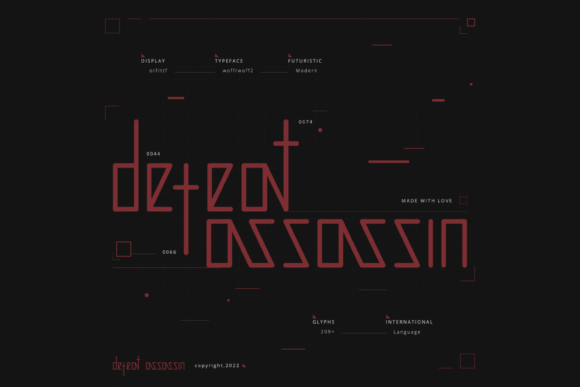
Introducing the Defeat Assassin Font, an extraordinary display font that breaks the boundaries of creativity. This font is not just a collection of letters and symbols; it's a gateway to a world of boundless imagination.
Step into a realm where your words take on a life of their own, commanding attention and leaving a lasting impression. Whether you're a seasoned designer or a budding creative, Defeat Assassin is your secret weapon, transforming your projects into captivating masterpieces.
Designed with precision and flair, the Defeat Assassin Font exudes a futuristic charm, perfect for designs that demand attention. Its sharp angles and bold strokes create a captivating visual impact, leaving your audience in awe.
From captivating headlines that leap off the page to mesmerizing logos that ignite curiosity, Defeat Assassin is your ultimate choice for making a statement. Its versatility knows no bounds, effortlessly adapting to a myriad of design styles, from sleek and modern to retro and playful.
Unlock the potential of your creative vision and let Defeat Assassin be your guiding light. Whether you're crafting marketing materials, designing social media posts, or creating stunning artworks, this font will elevate your creations to new heights.
Don't settle for ordinary fonts. Choose Defeat Assassin and unleash the power of visual storytelling. Let your words dance across the screen, captivating your audience and leaving them begging for more.